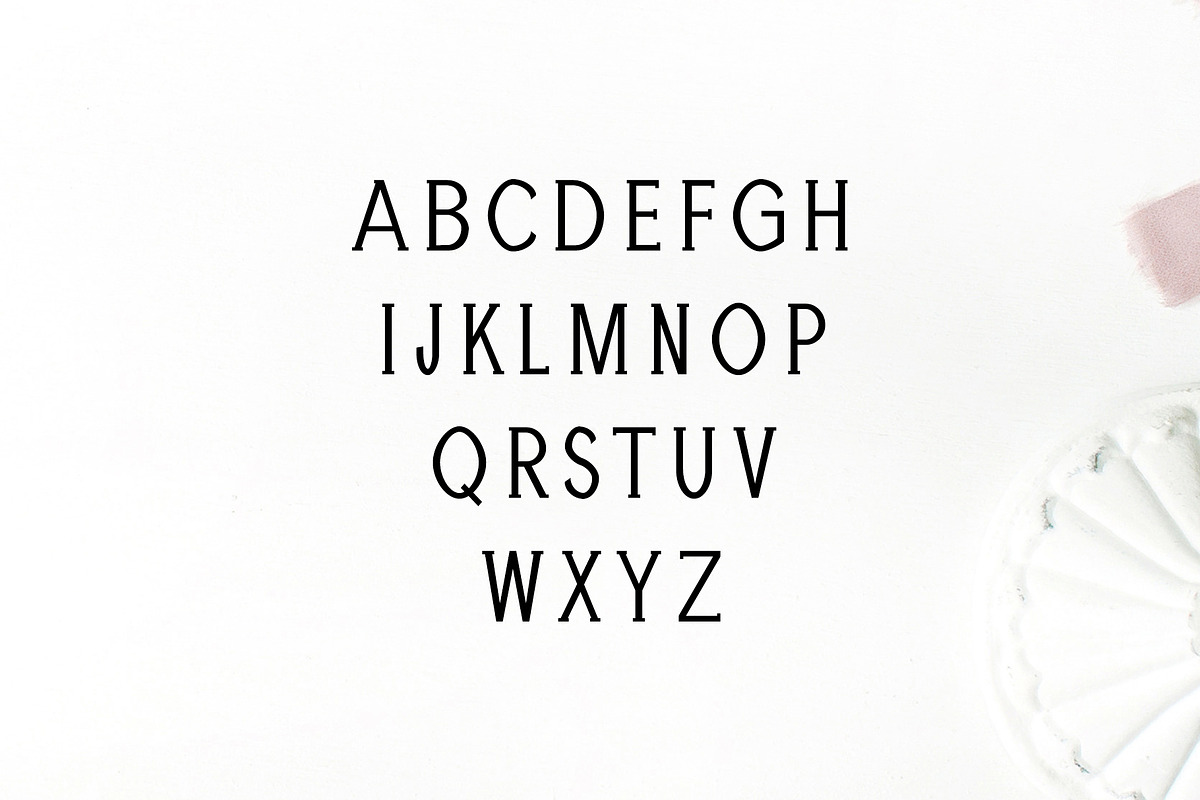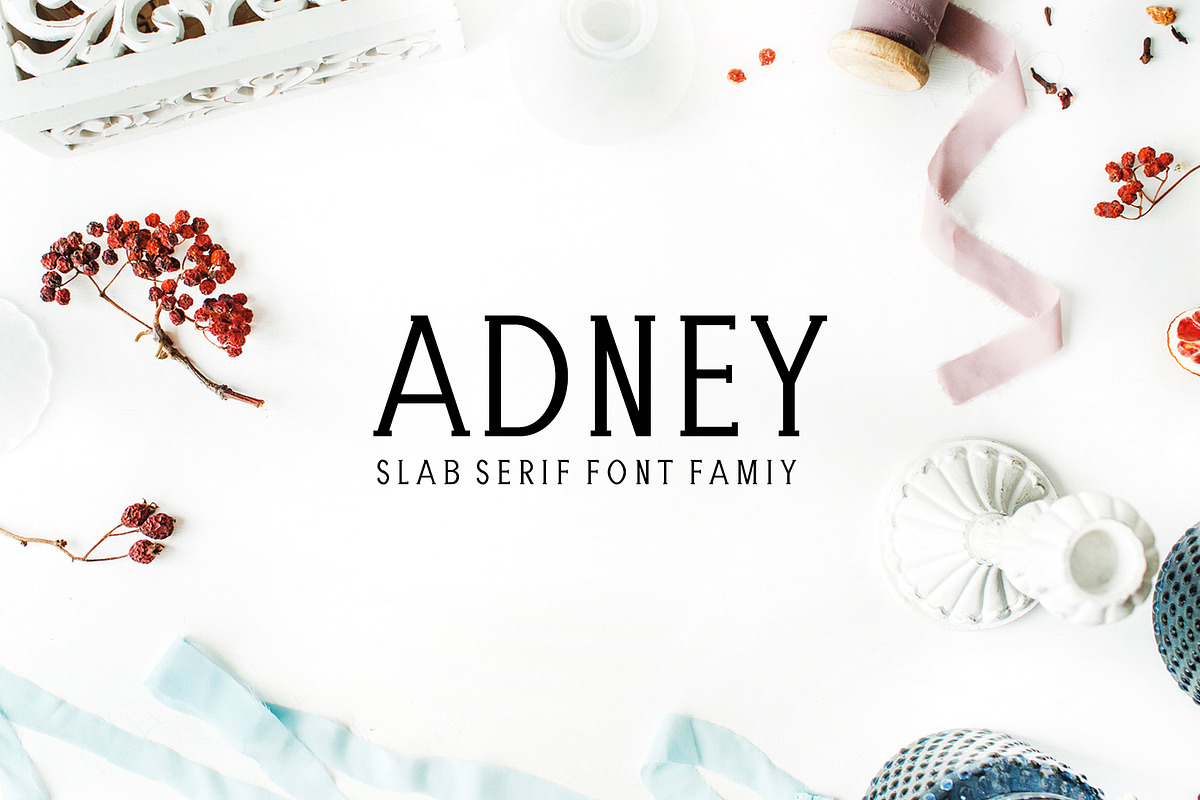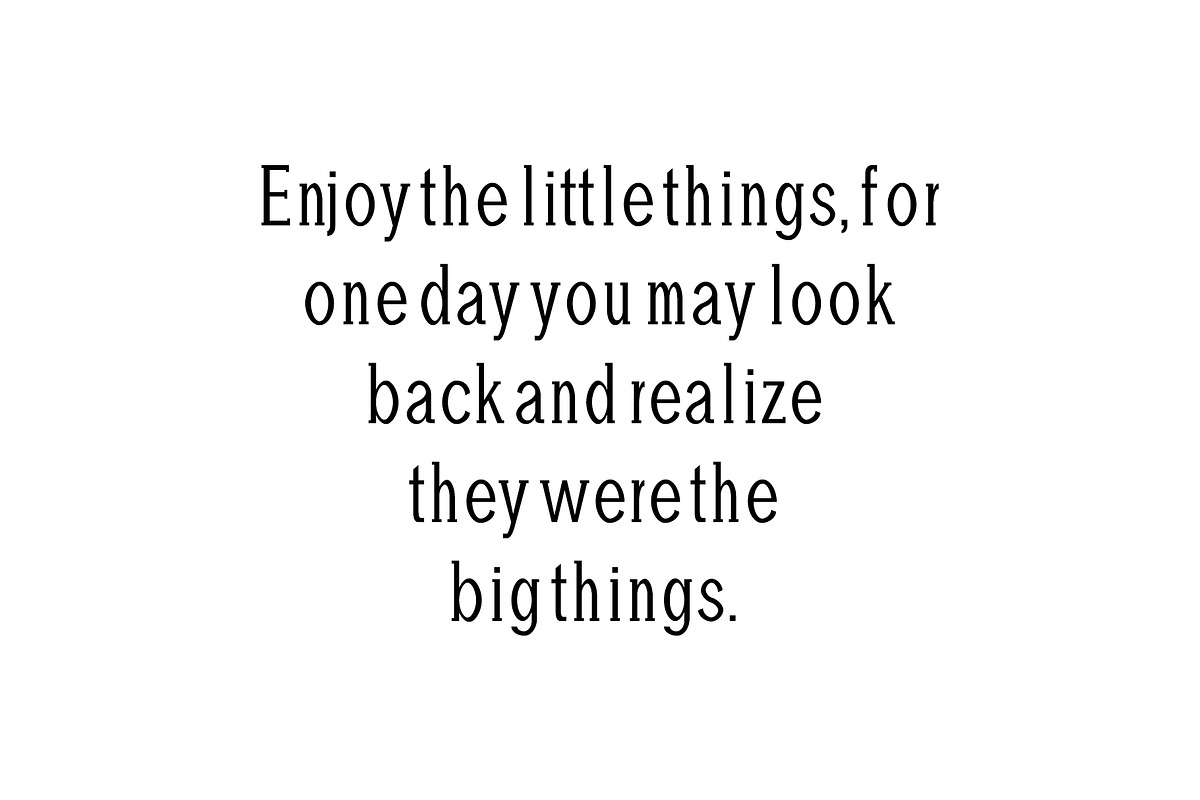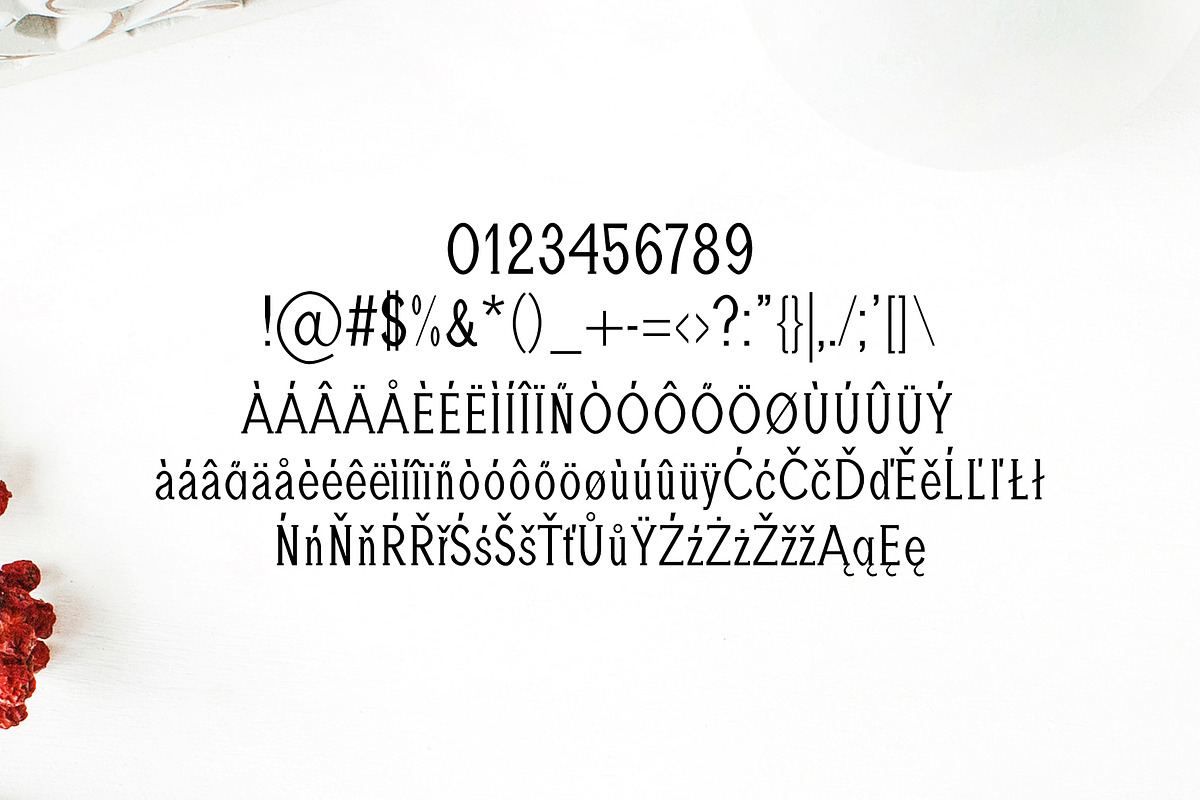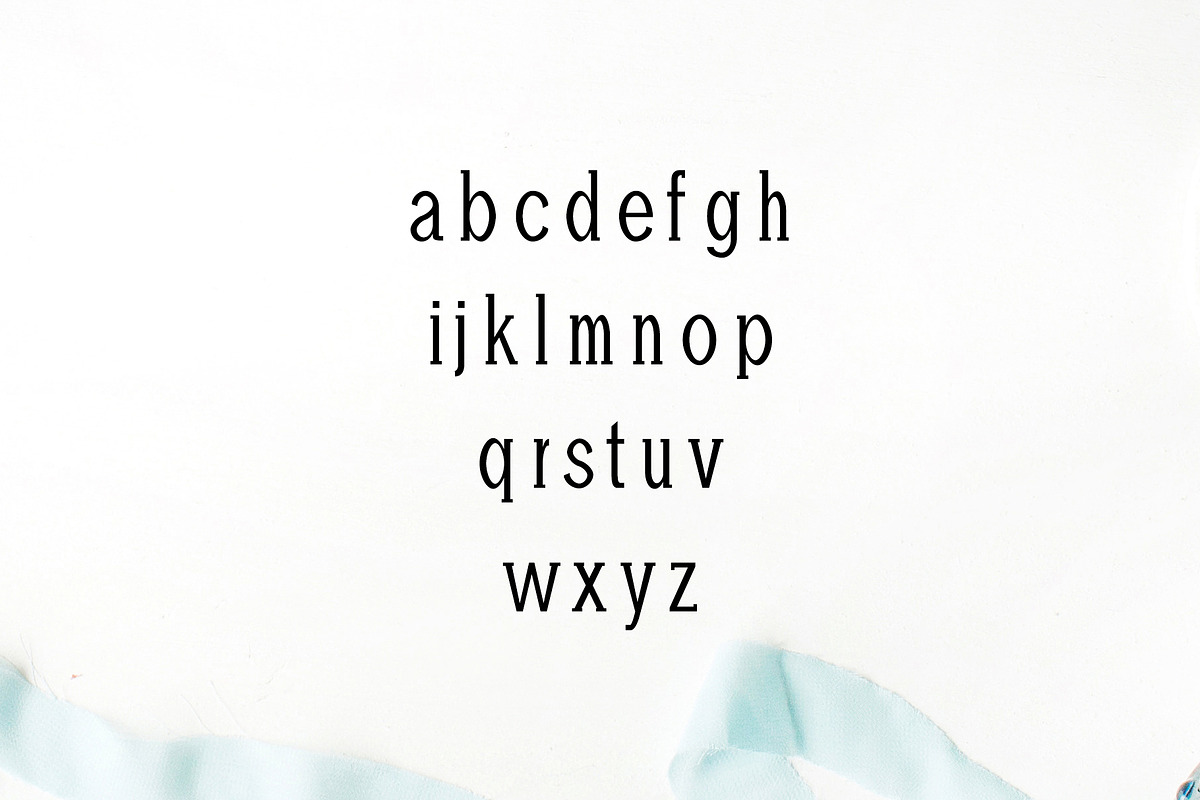
Adney Slab Serif Font Family
Adney Slab Serif Typeface is a lovely and unique slab serif font pack. It comes with three weights with complete basic glyphs with multilingual support. This font will be great for packaging, presentations, logo, headlines, lettering, posters, branding, quotes, titles, magazines headings, web layouts, advertising, invitations, packaging design, books, and nearly any creative design.
Regular, Light and Bold Weights
Non English Characters ( Latin Supplement + Latin Extended A )
- It comes with three weights with complete basic glyphs with multilingual support.
- Regular, Light and Bold Weights
- Adney Light
- Adney Regular
- Adney Bold